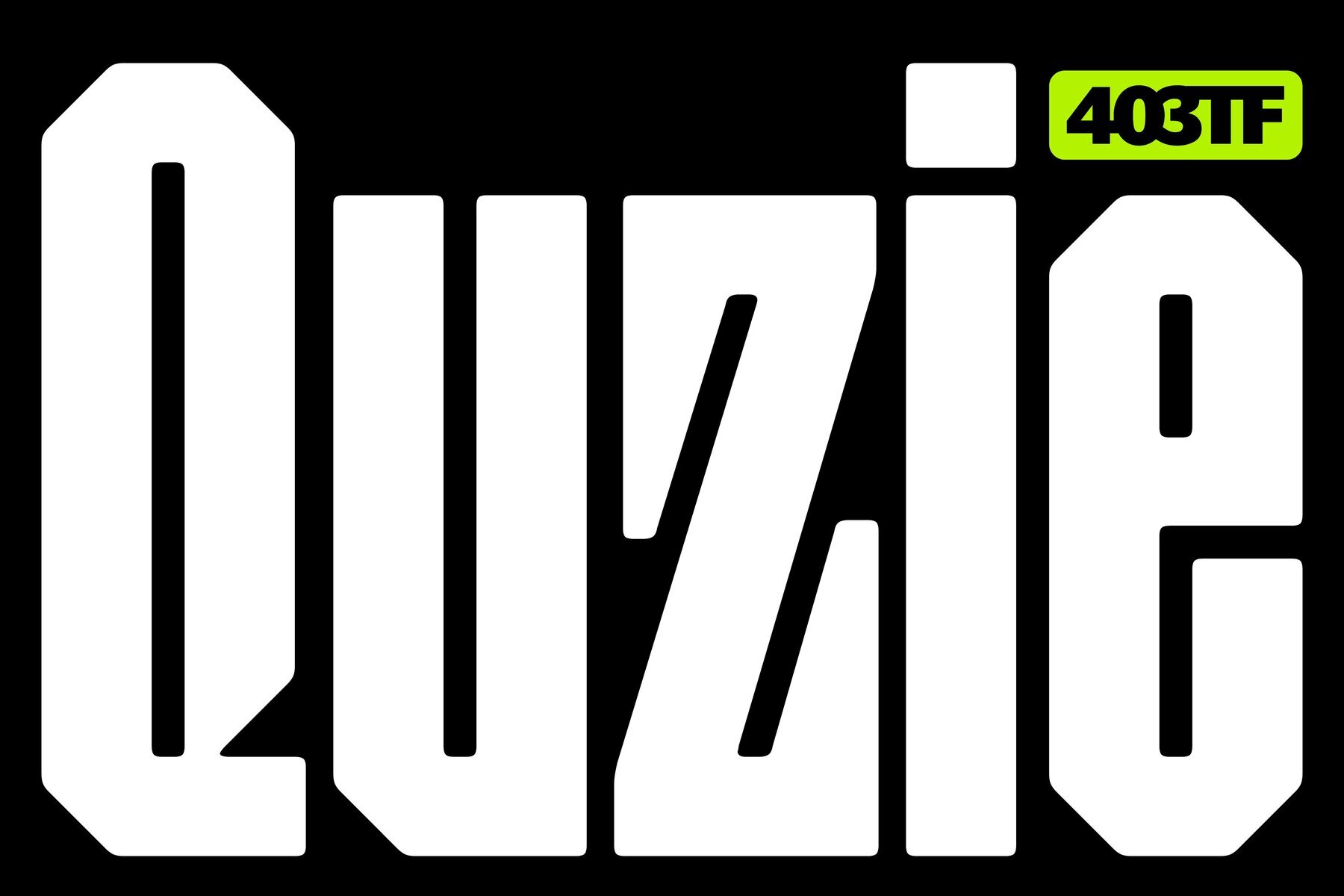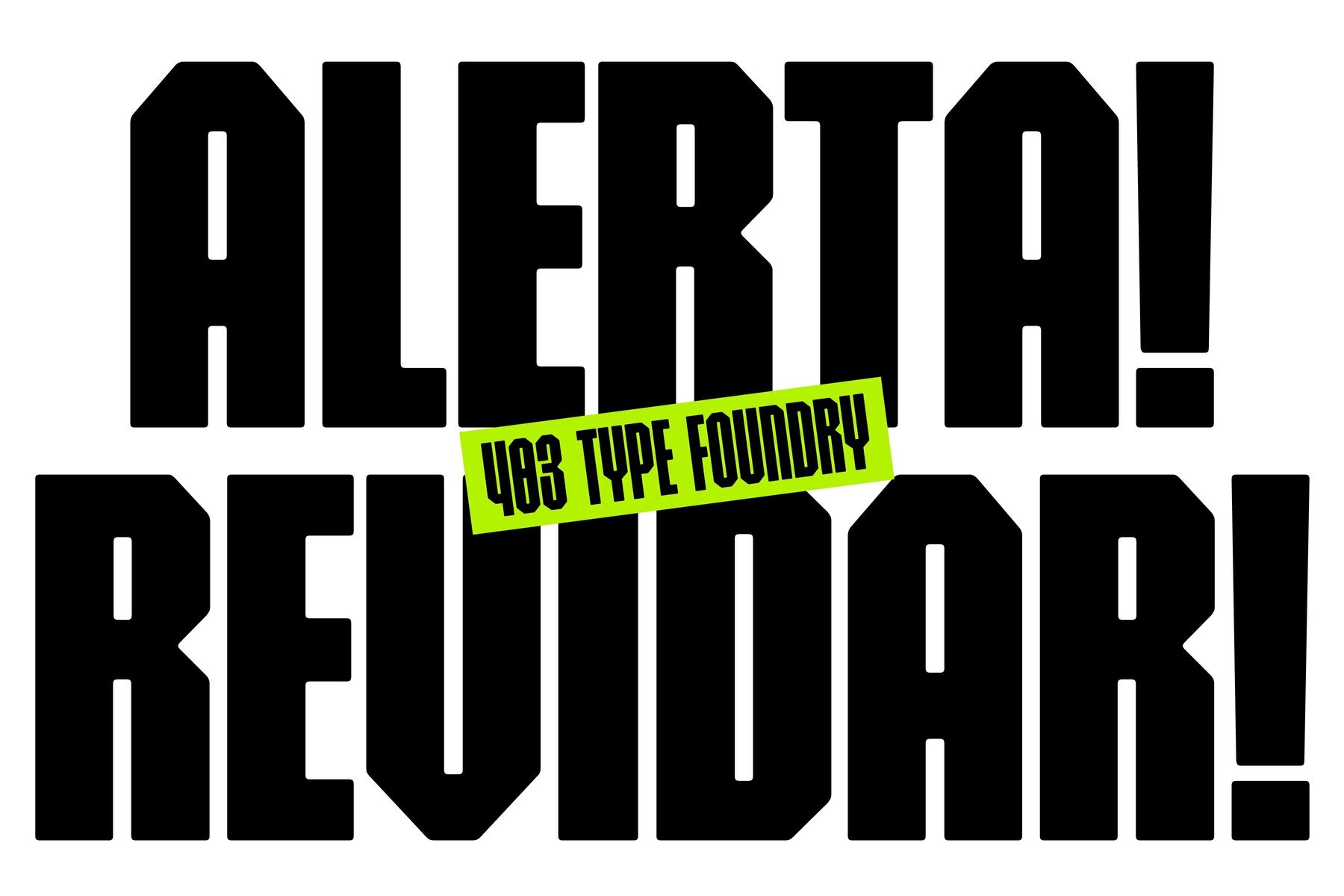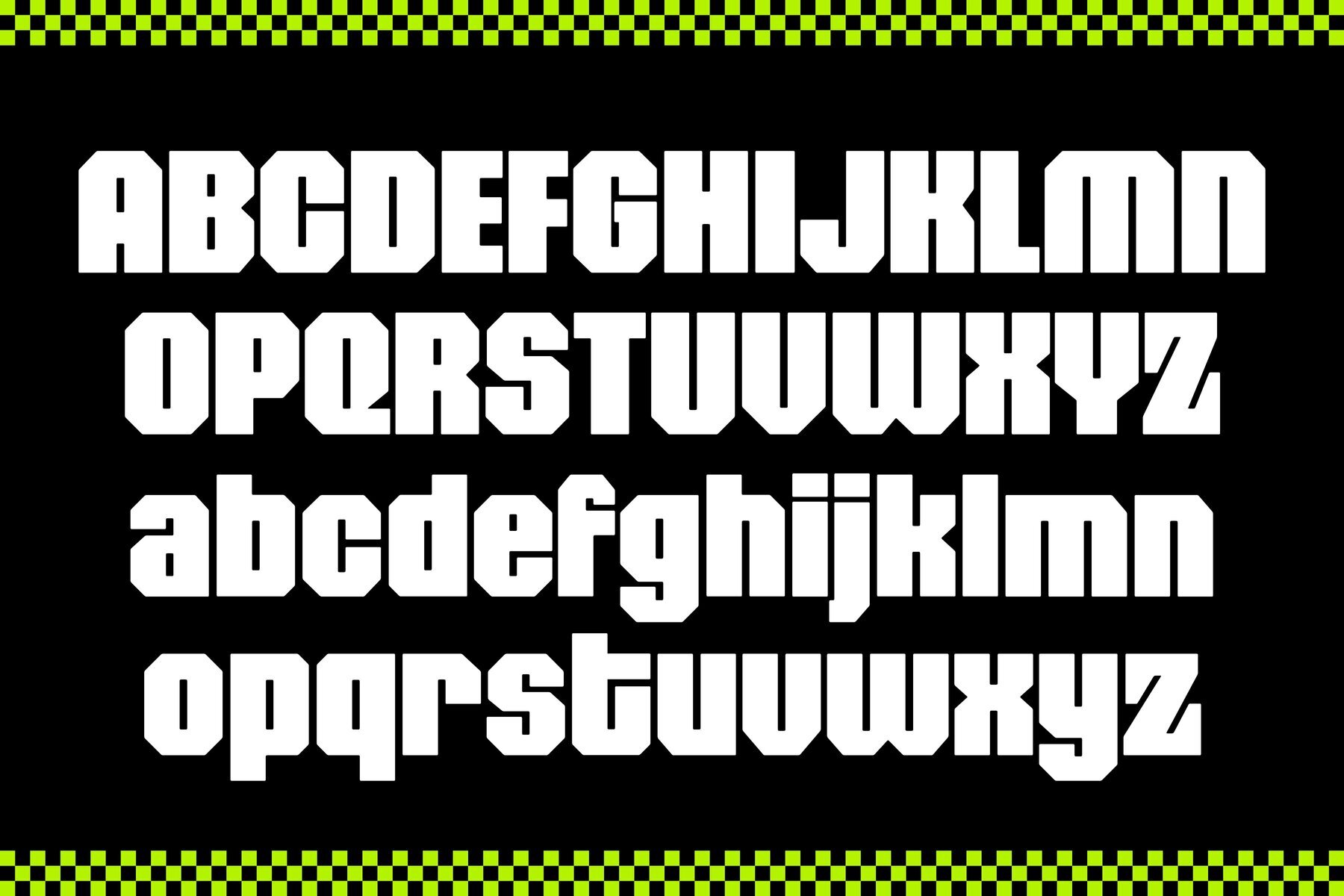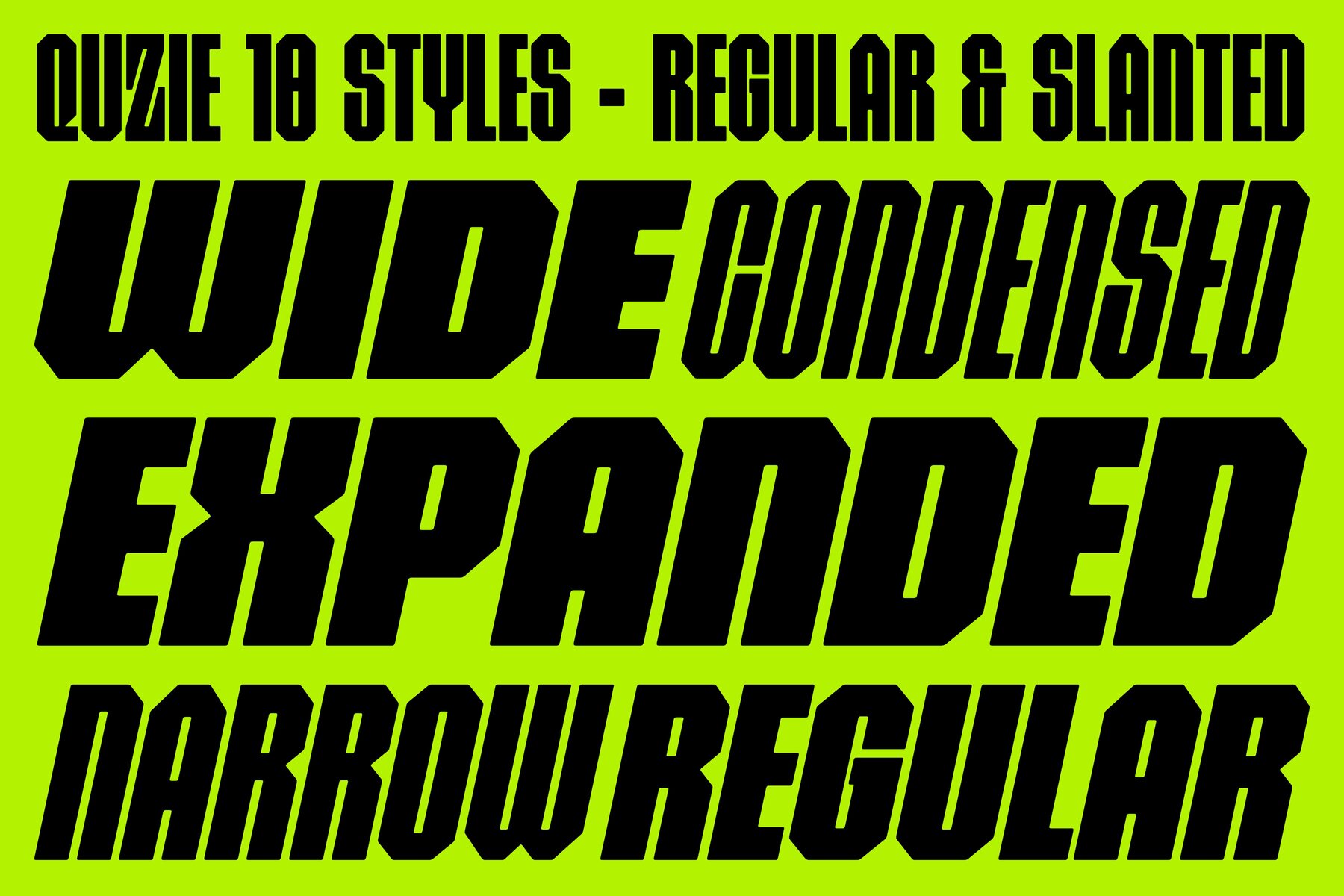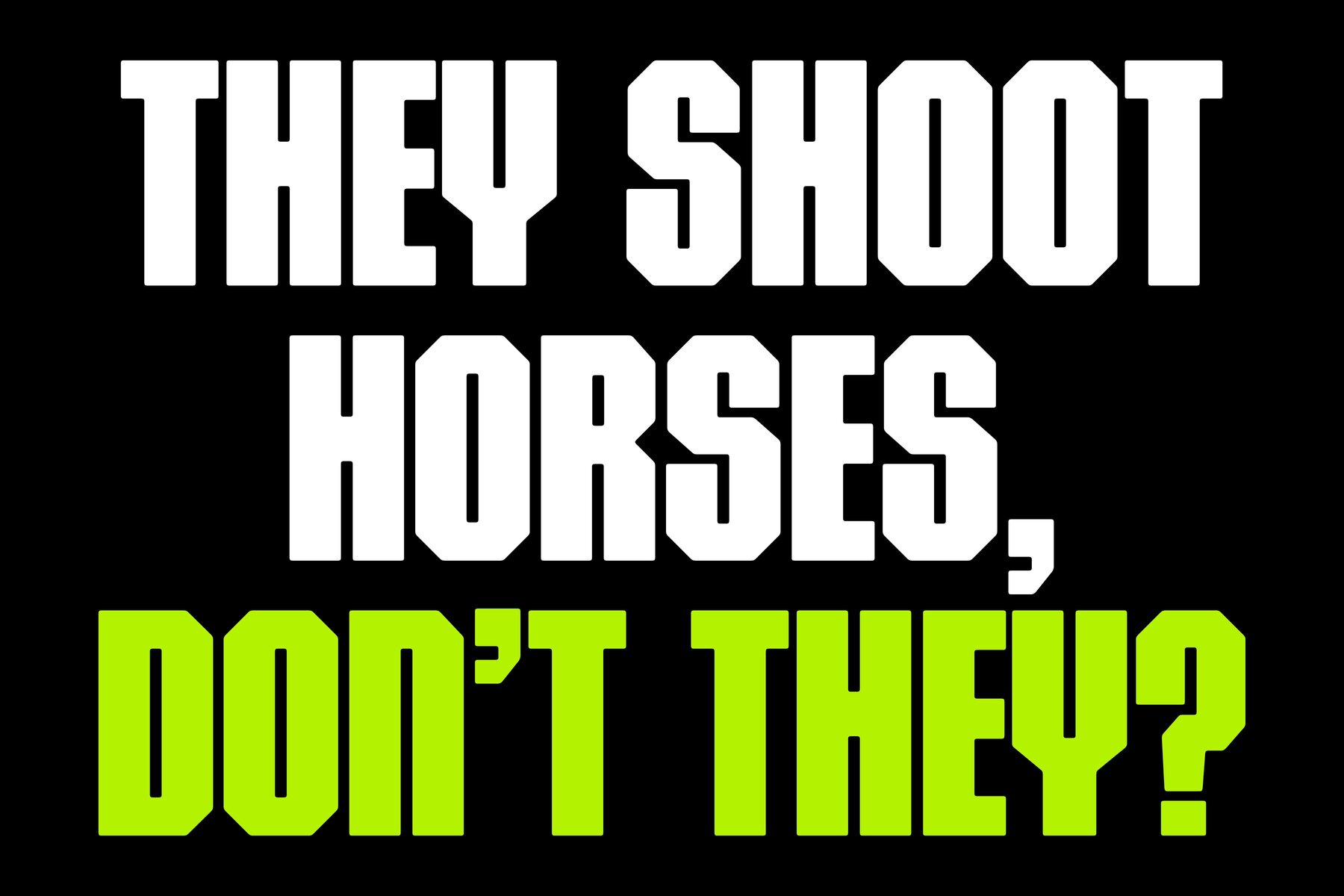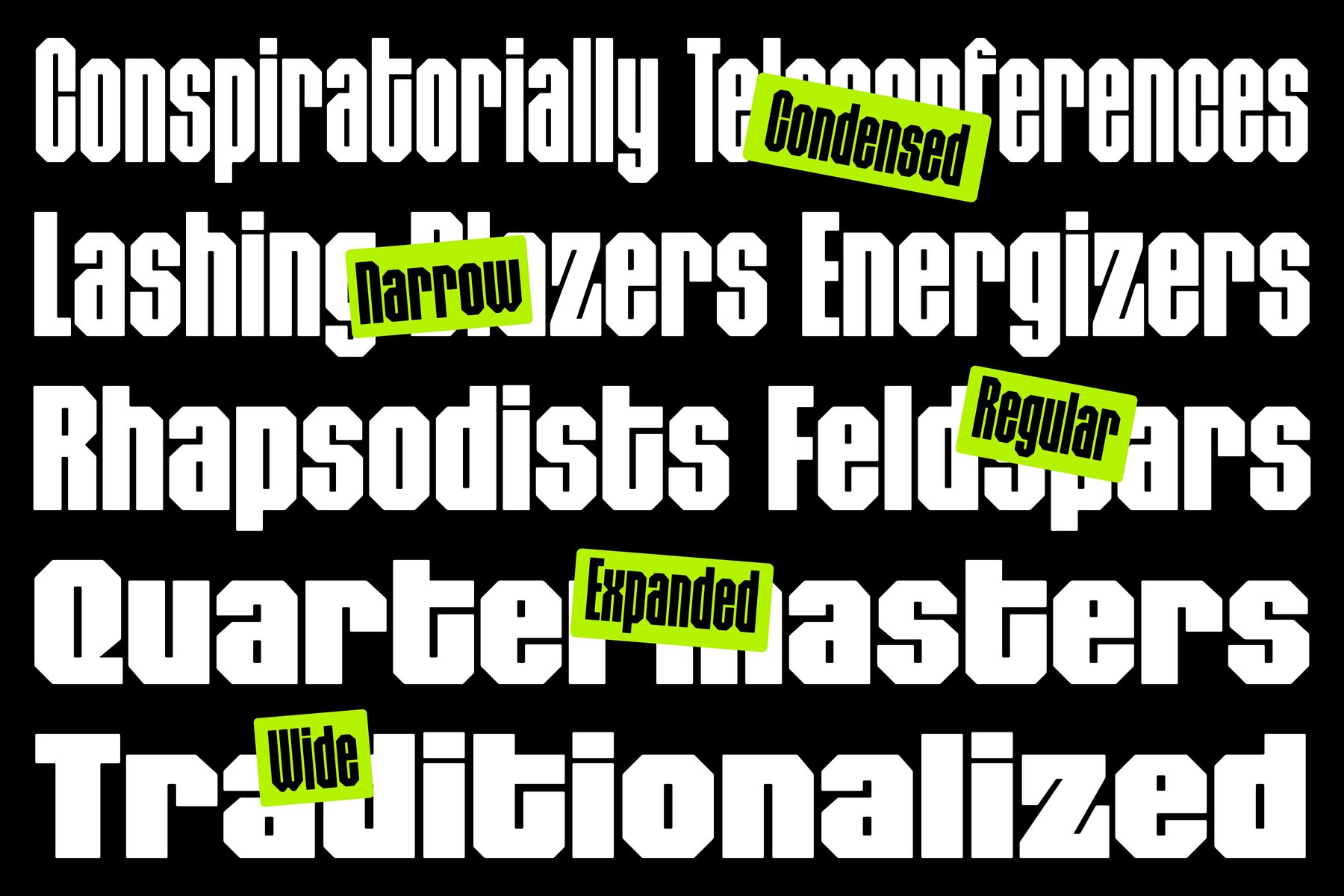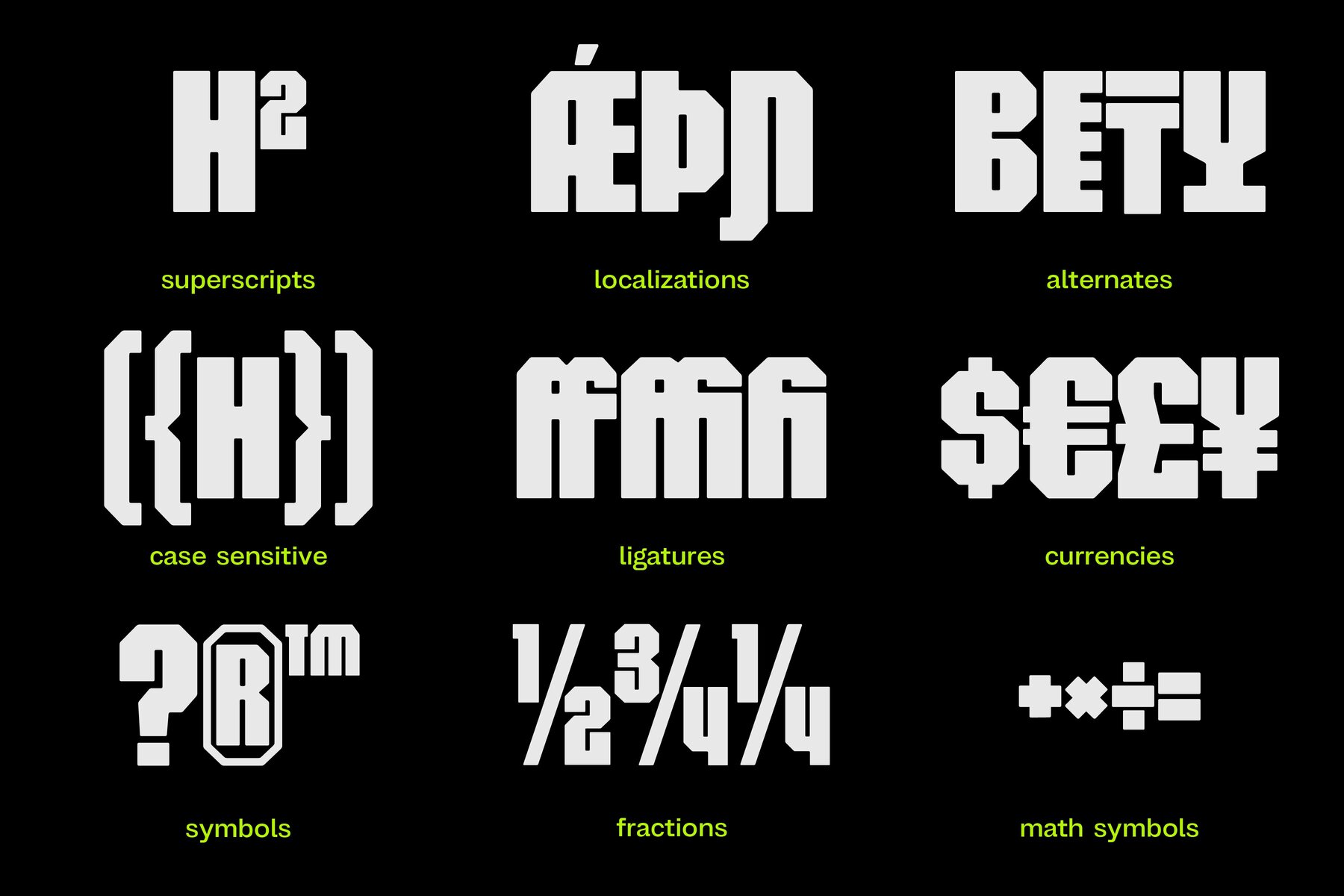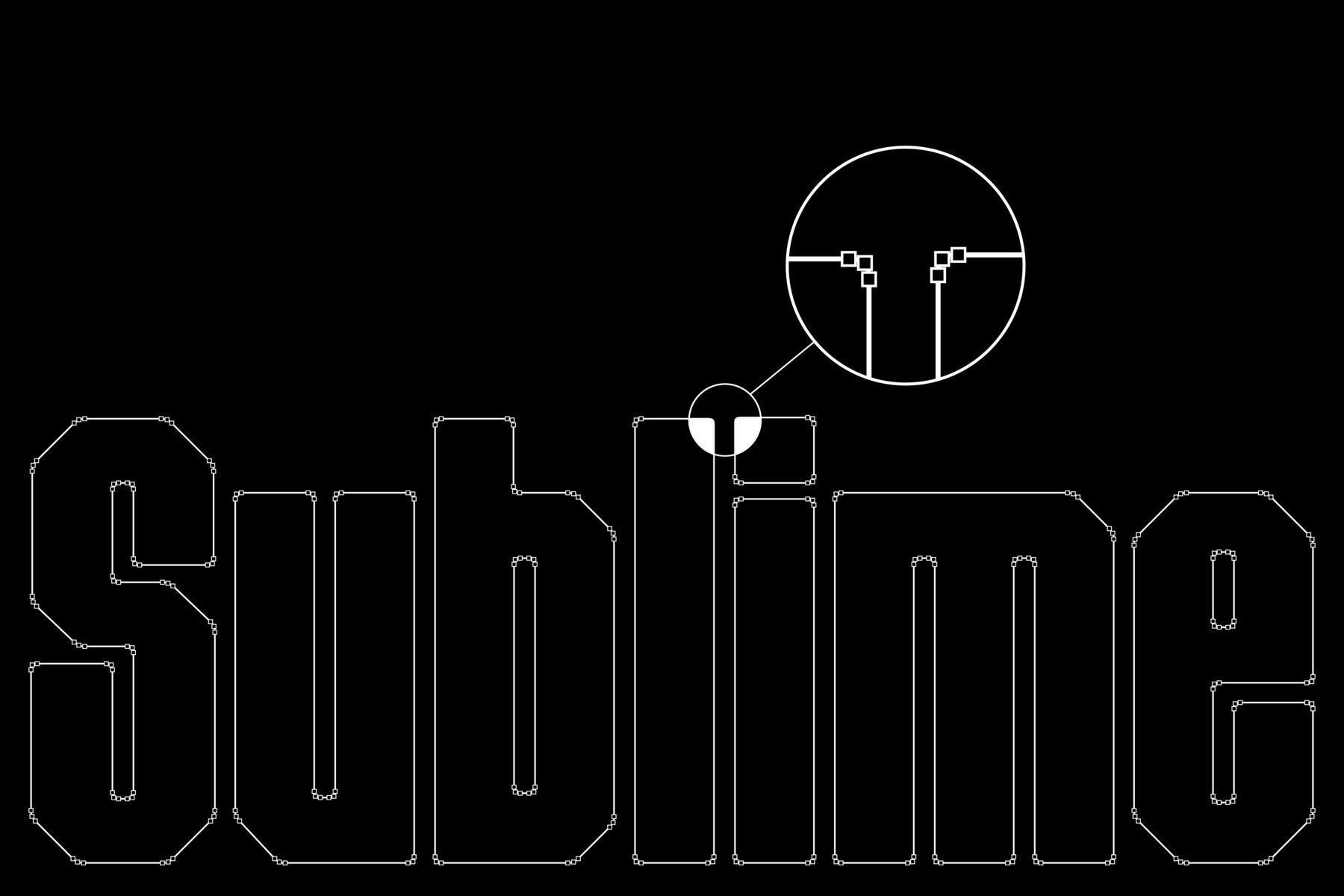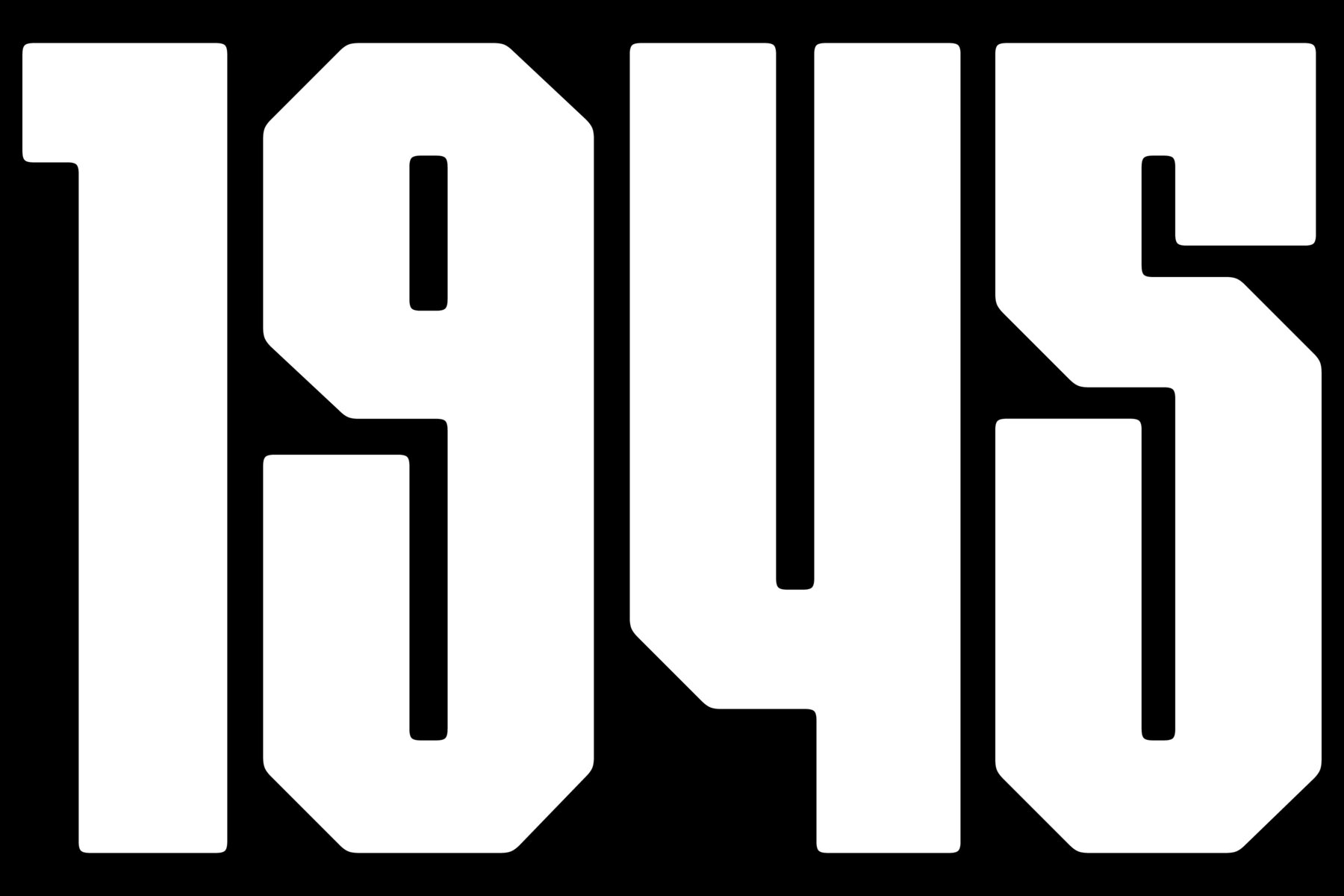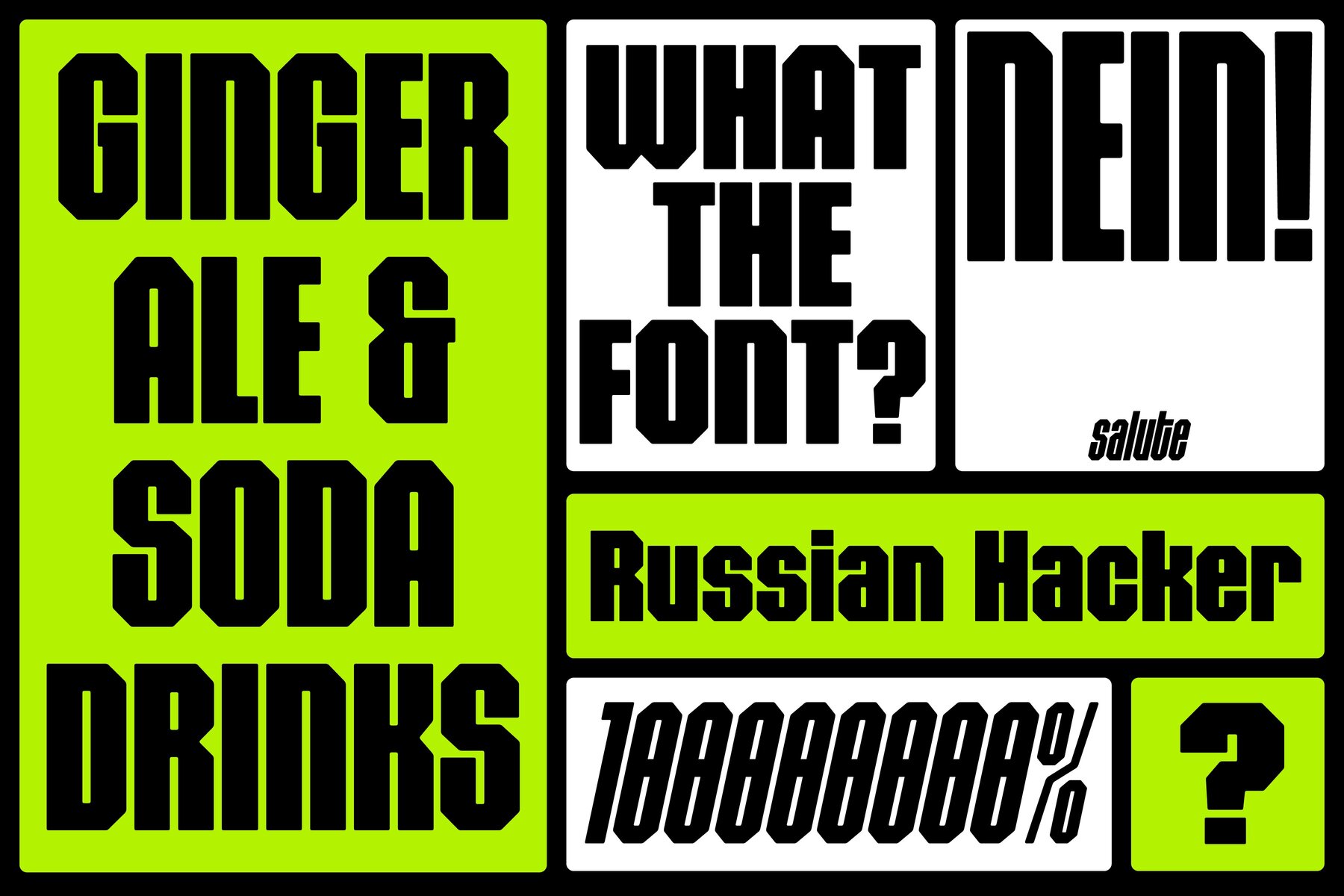
403 Quzie Font
403 Quzie is designed to stand out in high-impact applications like digital headers, packaging, posters, and branding. Ideal for industries such as entertainment, sports, and technology, this typeface captures attention with its bold and contemporary aesthetics. Its versatility is seen across its varied styles, including Wide, Condensed, Expanded, Narrow, Regular, and Slanted.
While 403 Quzie may not be the best choice for body text or small-scale usage, its dynamic and captivating nature makes it perfect for projects that require a striking visual presence. This typeface is sure to contribute a modern edge to any design, ensuring that it leaves a strong impression wherever it is applied.